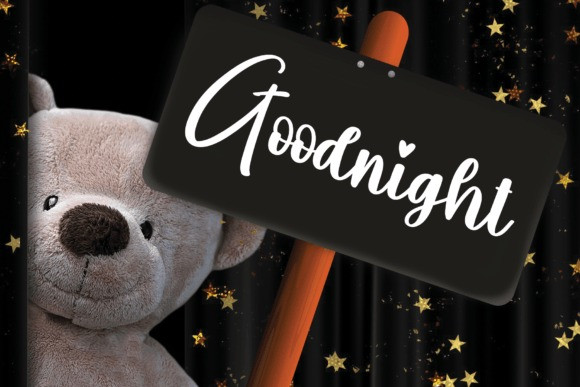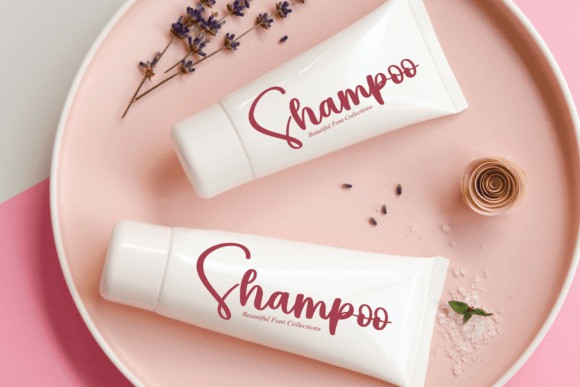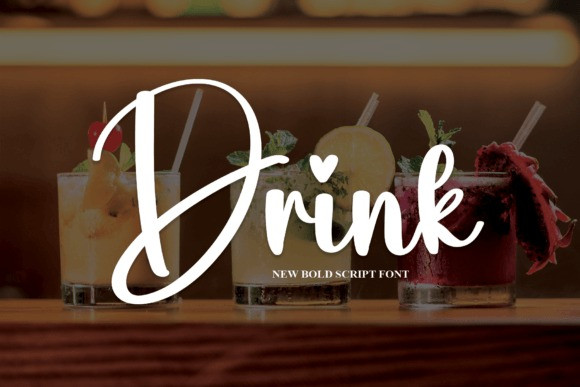
Drink Script Font
Drink Script Font, is a lovely and sweet handwritten script font. This gentle font will look gorgeous on a variety of design ideas. It will add a joyful and romantic touch to each of your projects!